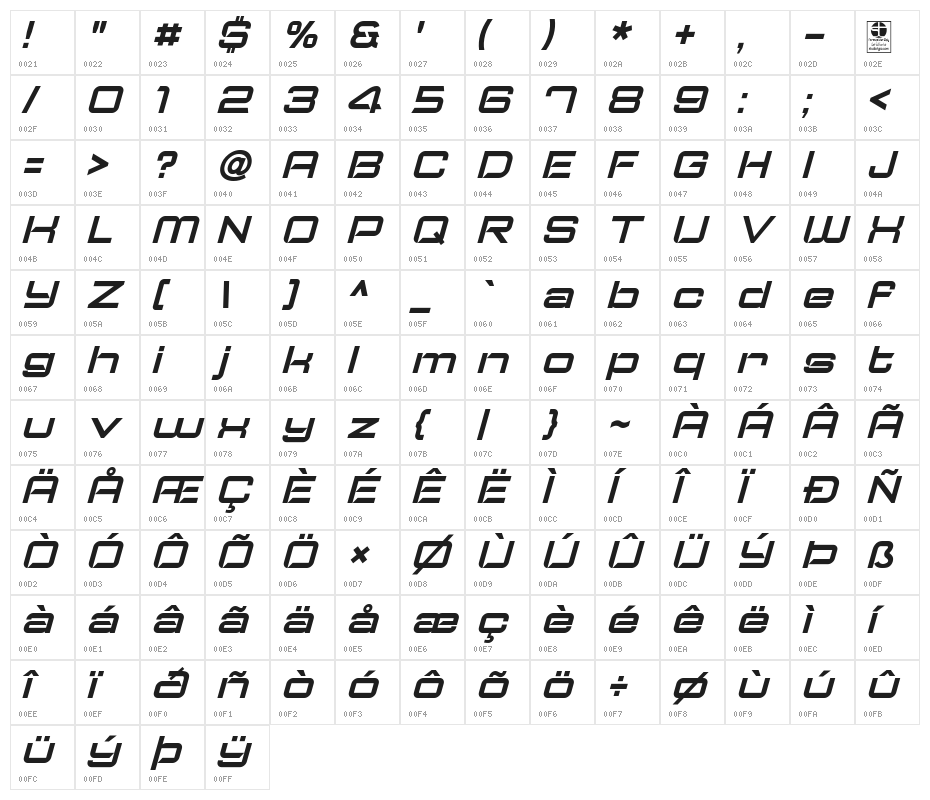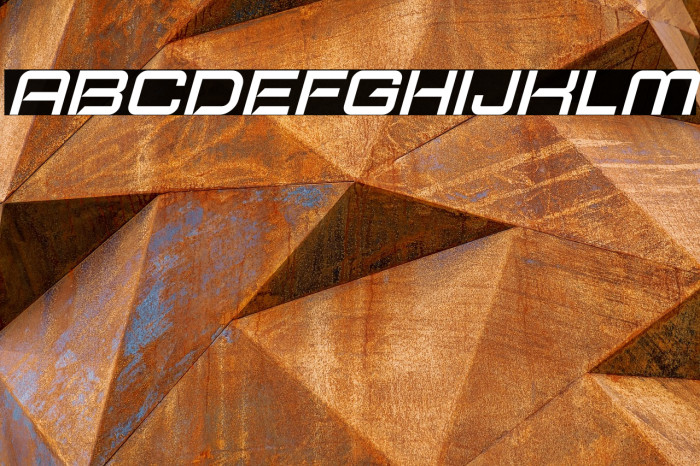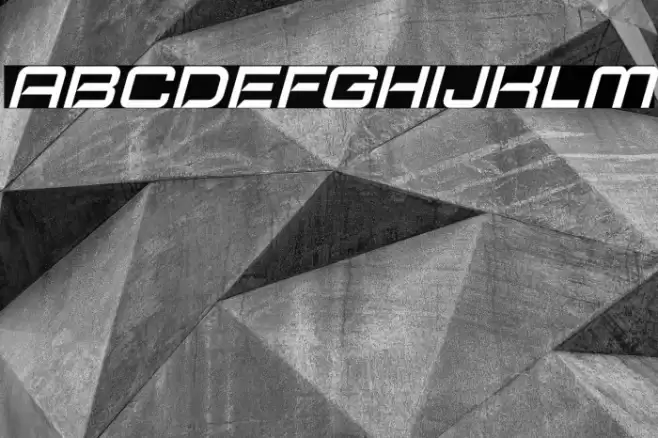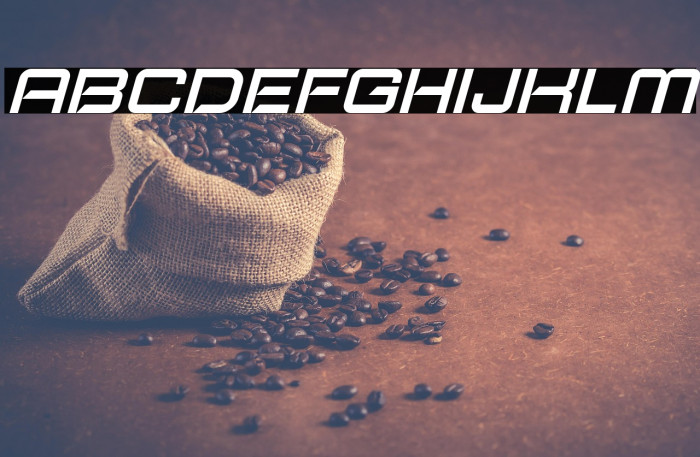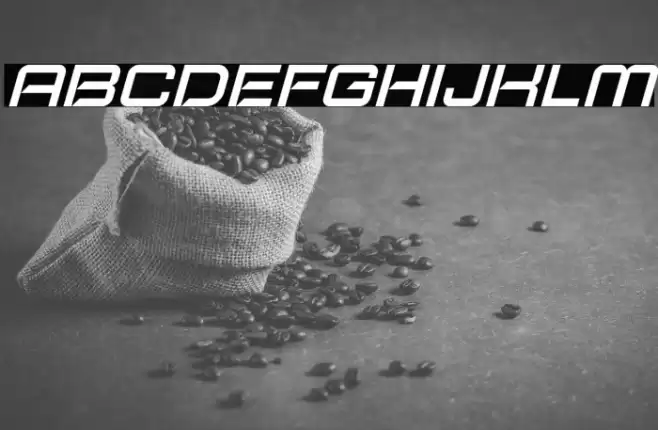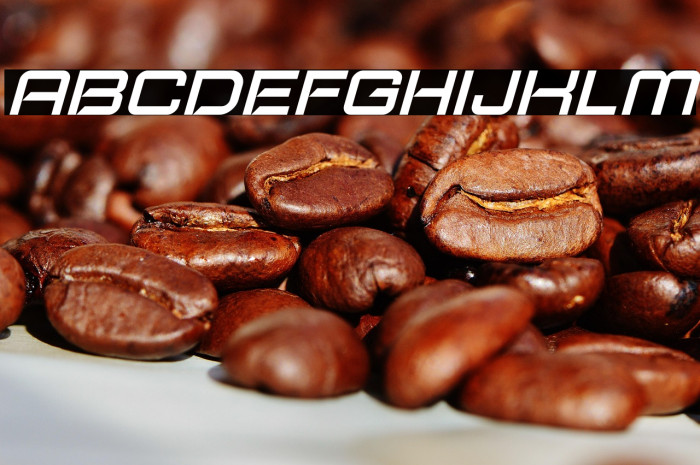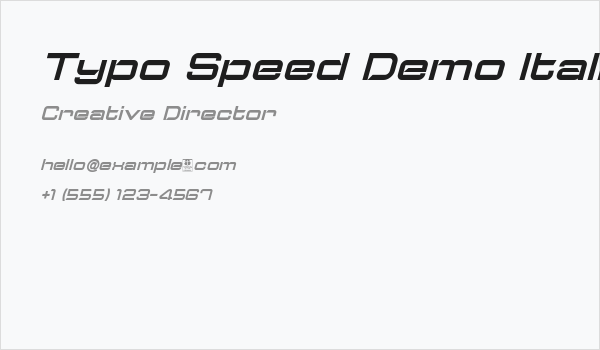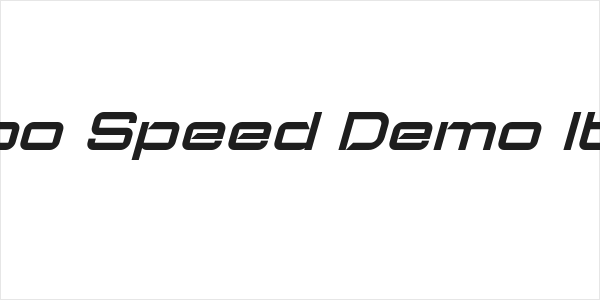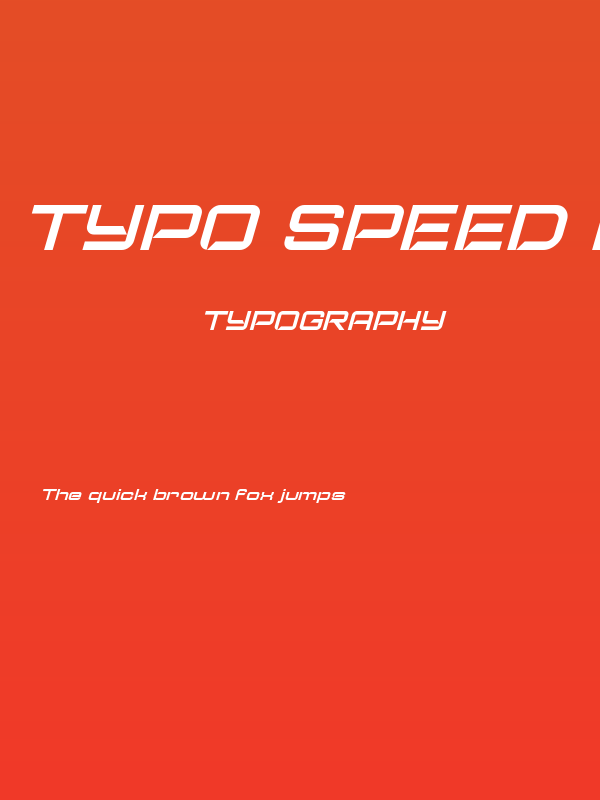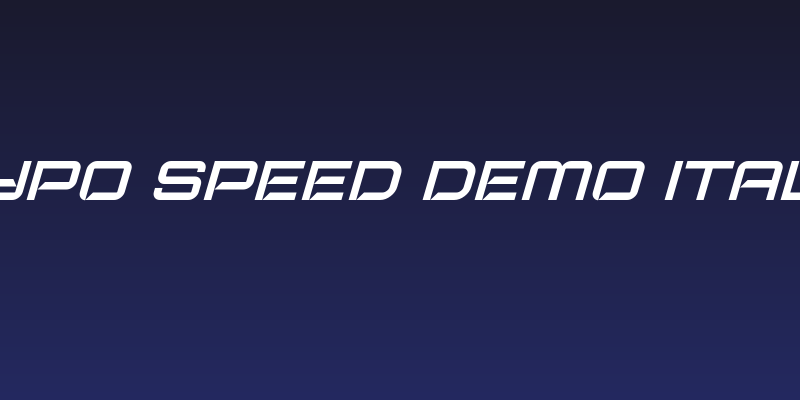
Typo Speed Demo Italic Font
Typo Speed Demo Italic Description
This font features a sleek, italicized design with a modern and dynamic appearance. The characters are slightly slanted, giving a sense of motion and speed. The strokes are consistent in thickness, providing a uniform look across all characters. The uppercase and lowercase letters maintain a cohesive style, with rounded edges and smooth curves. The numerals and special characters are designed to match the overall aesthetic, ensuring a harmonious appearance throughout. This font is ideal for projects that require a contemporary and energetic feel.
| Use Case | Headlines, Logos, Advertisements |
| Proposed Projects | Ideal for sports branding, automotive advertisements, tech product packaging, and dynamic website headers. |